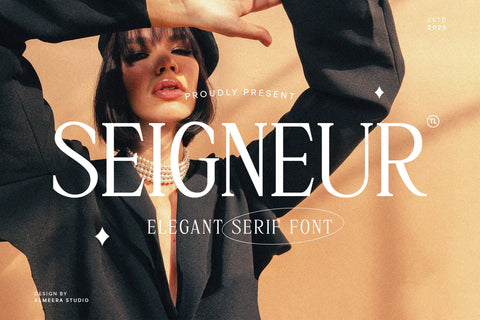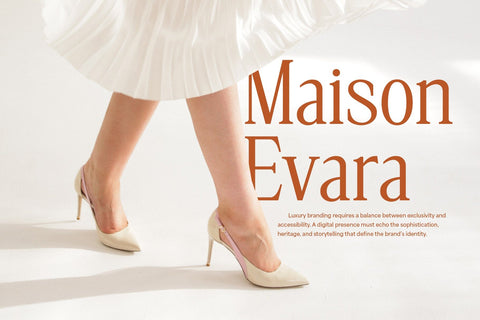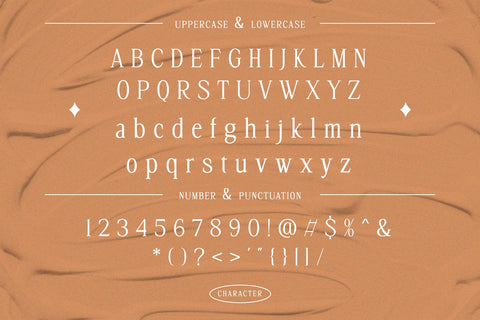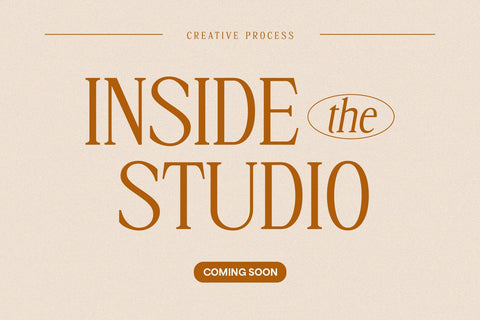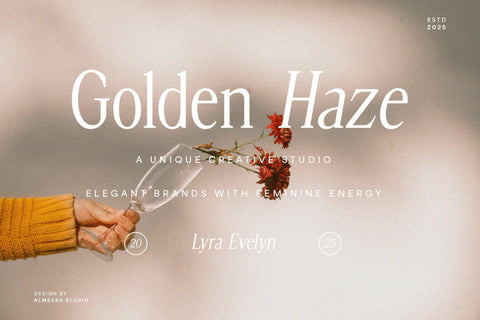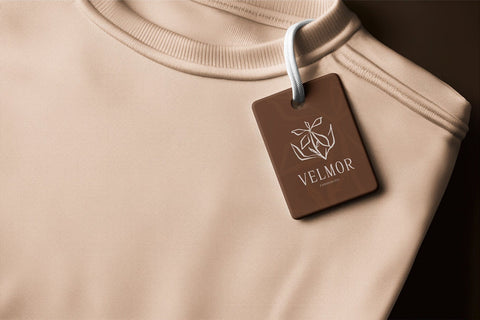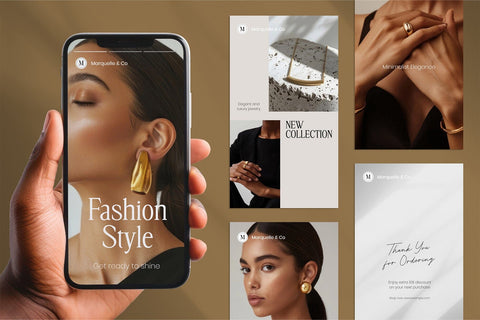
Seigneur - Elegant Serif Font
Unleash the sophistication of Seigneur, a truly elegant serif font designed to captivate and command attention. Perfect for high-end branding, fashion magazines, luxury product packaging, and editorial design, Seigneur embodies a refined blend of classic grace and modern allure. Its distinctive curves and crisp serifs create a visually stunning impression, offering unparalleled readability and stylish flair. With Seigneur, your projects will exude an air of exclusivity and timeless beauty. Elevate your typography and make a bold statement with this versatile display font, a must-have for designers aiming for a polished and impactful aesthetic.